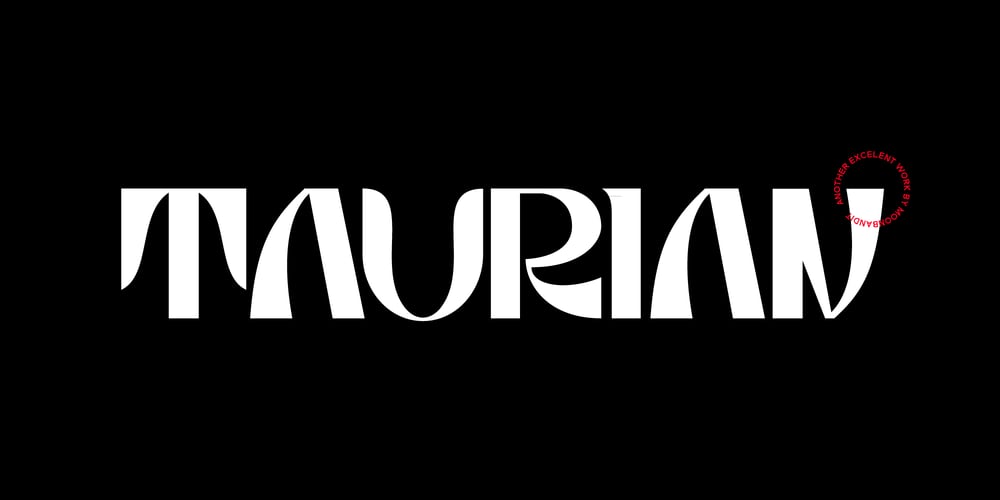
MBF Taurian
MBF Taurian font
MBF Taurian Font Family was designed by Bramaji Dipa Manggala and published by Moonbandit. MBF Taurian contains 1 styles and family package options. Introducing Taurian, a bold and elegant display typeface. Inspired by the majestic horn of the bull, taurian can gives a proud, strong and bold elegance to your projects. Passionately built with the utmost details on each glyph. Ideal use as a headline, title, display, logo, and many other.opentype features include: ligature alternate kerning